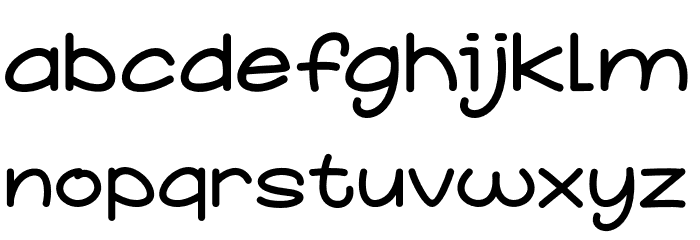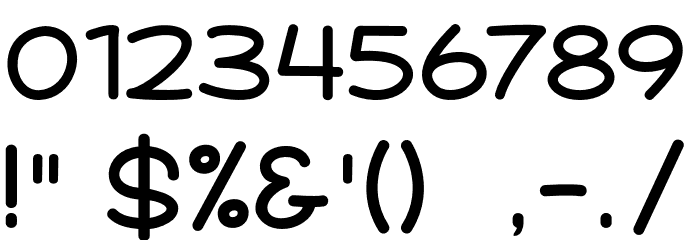
School Story Font
This playful and rounded font exudes a friendly and approachable vibe, making it ideal for informal and child-friendly designs. The characters are bold and slightly whimsical, with a consistent stroke width that adds to its casual charm. The rounded edges and smooth curves give it a soft appearance, making it suitable for educational materials, children's books, and playful branding. The font maintains a uniform height across all characters, ensuring readability and a cohesive look. Its simplicity and warmth make it versatile for various creative projects.
A playful, rounded font with a friendly and approachable style.
- Font: School Story
- Proposed Projects: Ideal for children's books, educational materials, playful branding, and casual invitations.
- Category: Handwritten
- Overall Style: Playful
- Use Case: Headlines, Logos, Children's materials